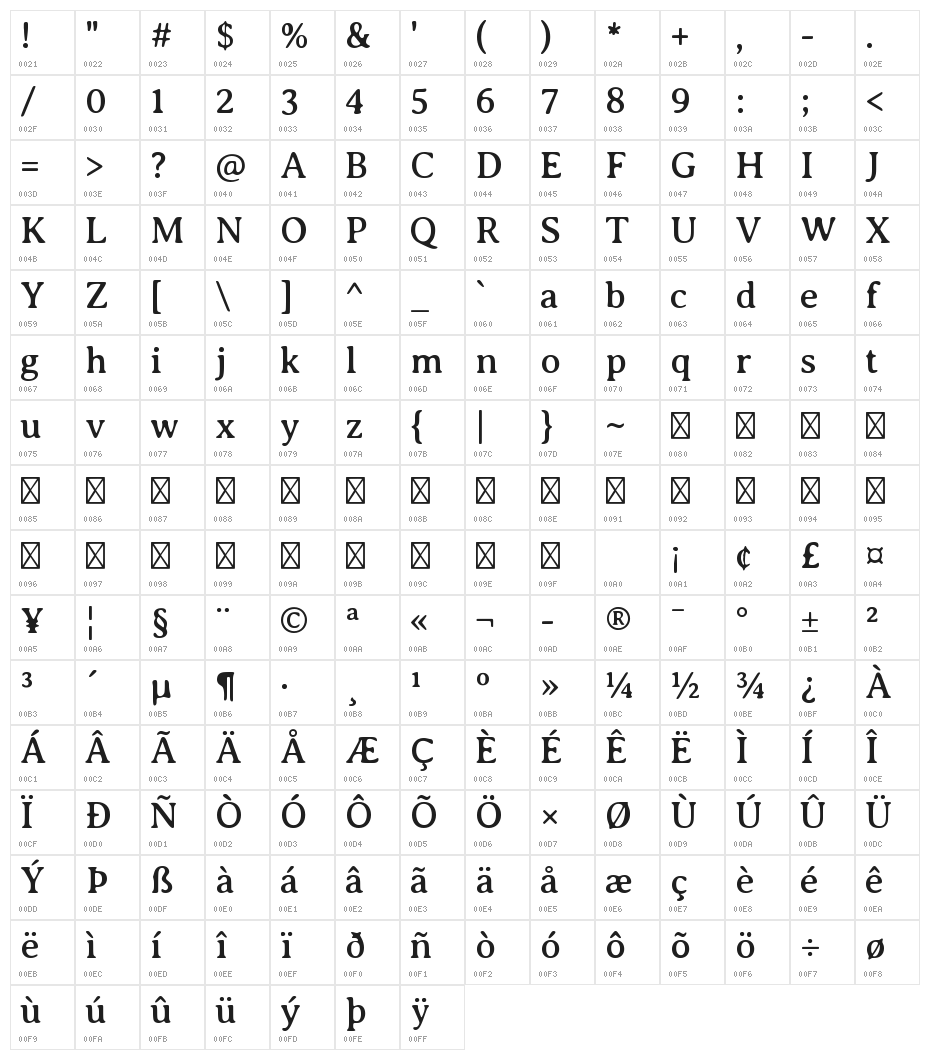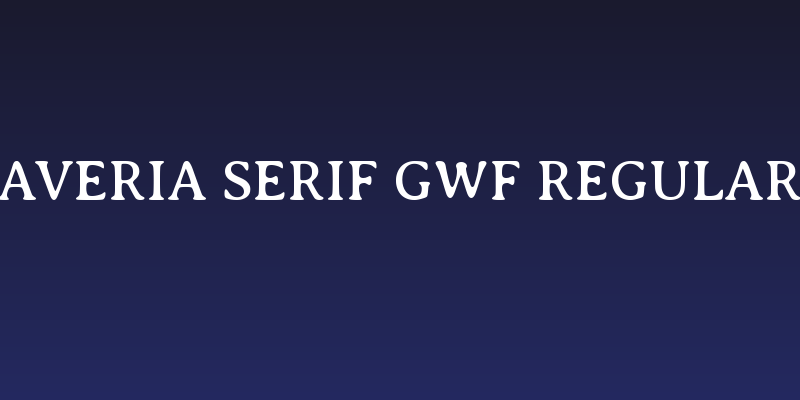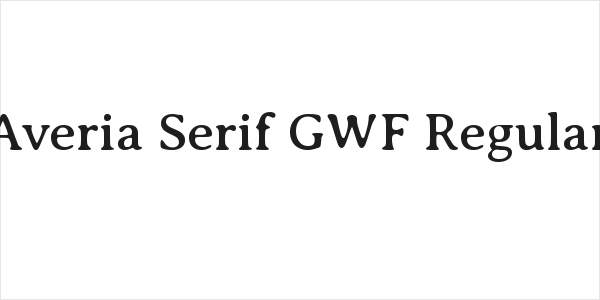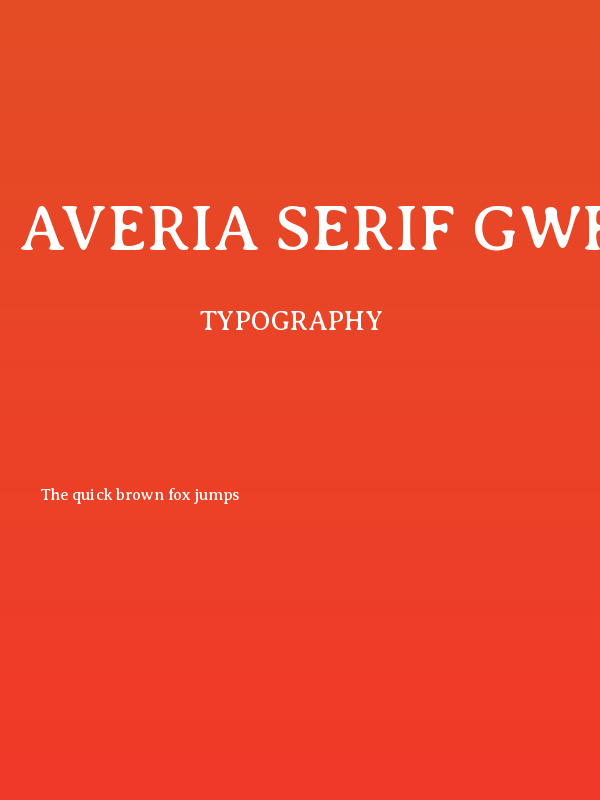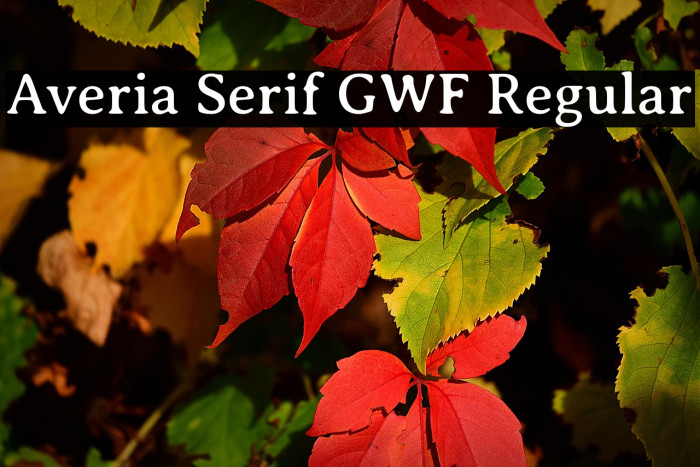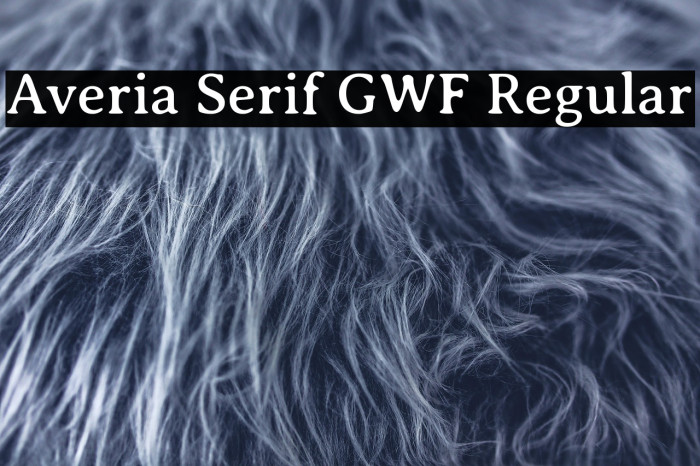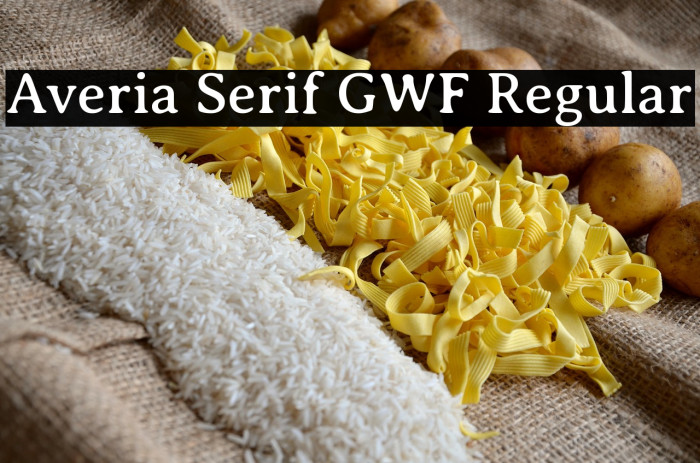
Averia Serif GWF Regular Font
Averia Serif GWF Regular Description
This font features a classic serif style with a friendly and approachable appearance. The letters have a slightly rounded quality, giving them a soft and welcoming feel. The serifs are pronounced yet not overly sharp, adding to the overall readability and charm. The font maintains a consistent weight throughout, providing a balanced and harmonious look. It includes a full set of uppercase and lowercase letters, numerals, and a variety of punctuation marks and special characters. The design is versatile, making it suitable for both formal and informal contexts.
| Proposed Projects | Ideal for book covers, editorial design, branding, and invitations due to its classic and approachable style. |